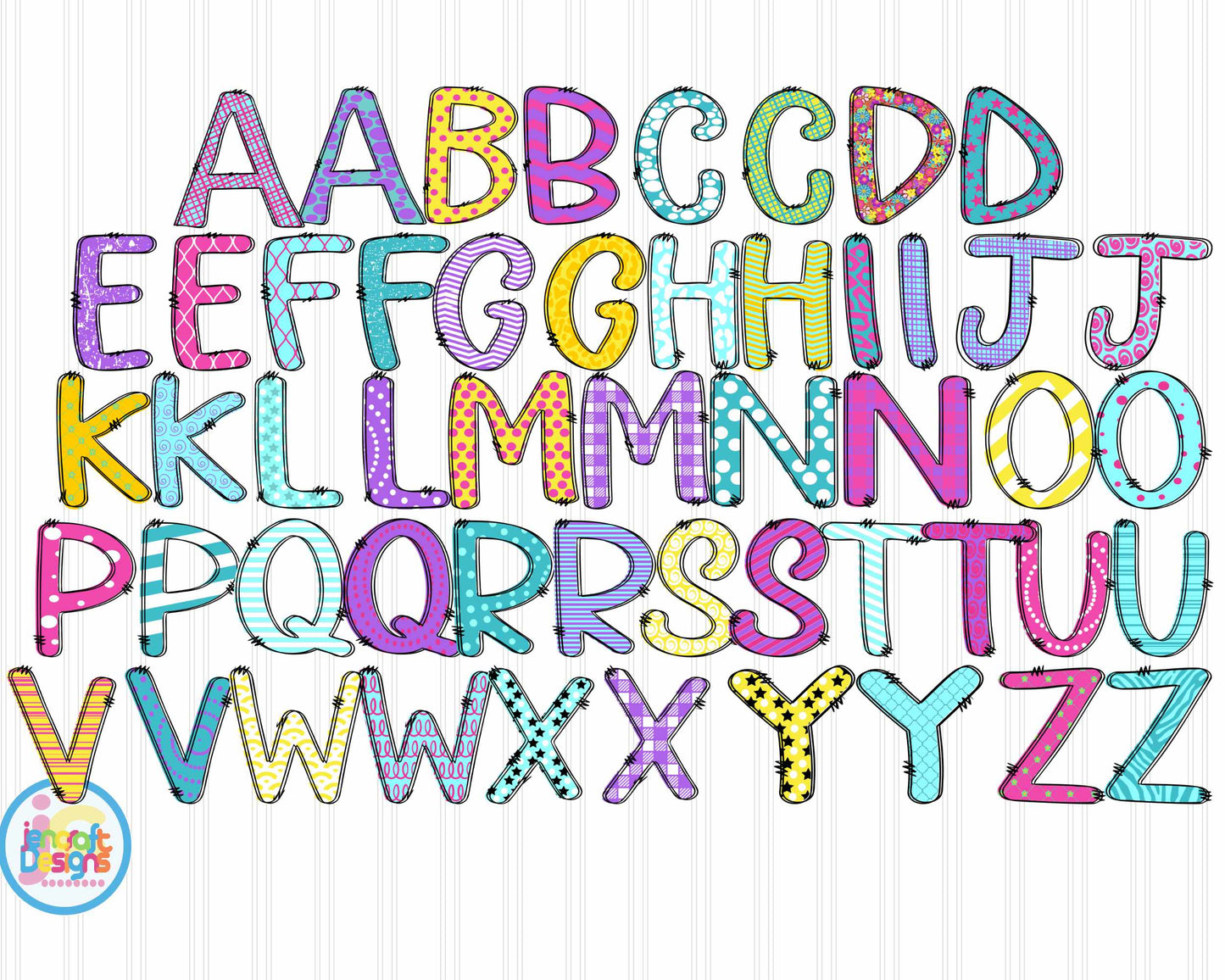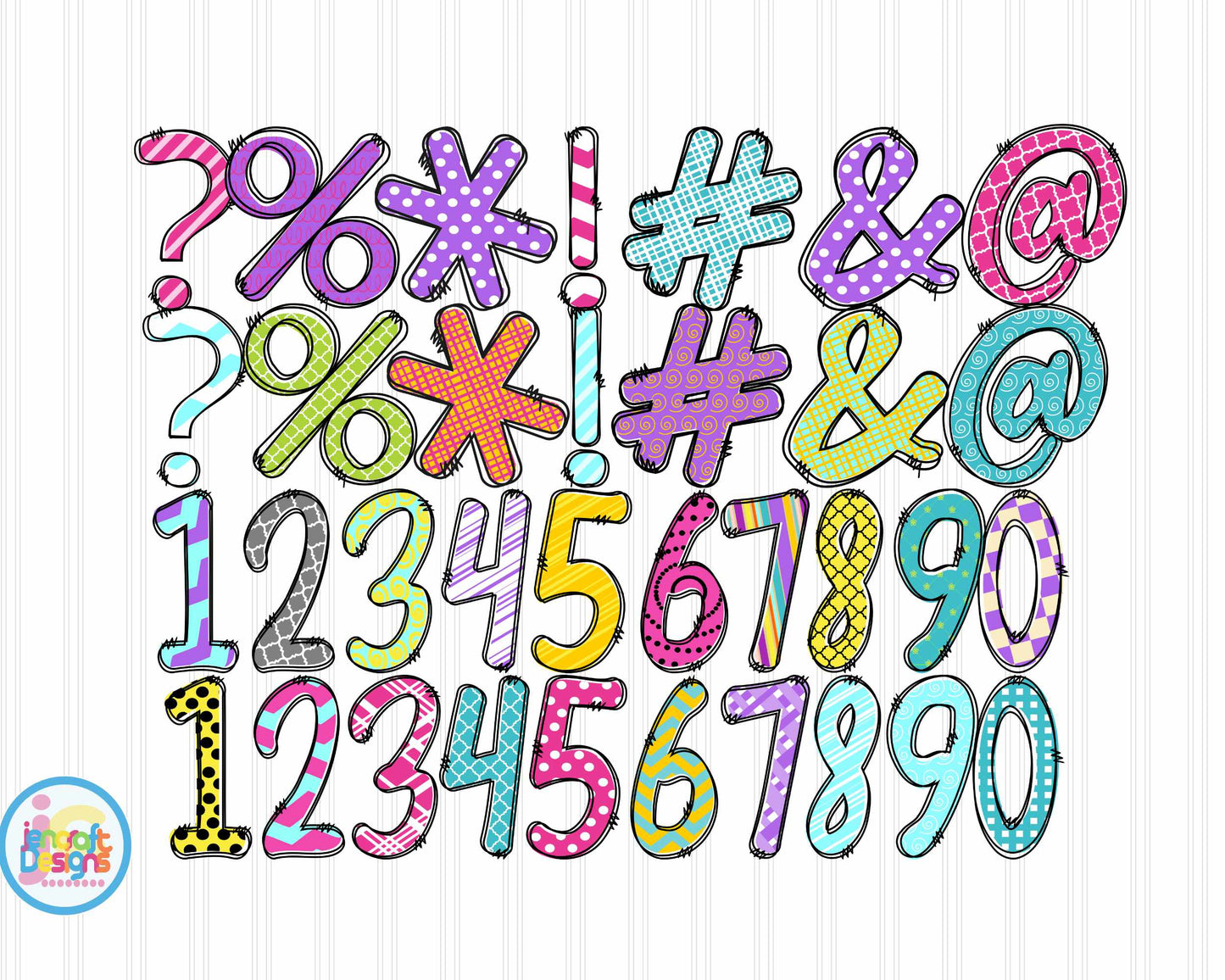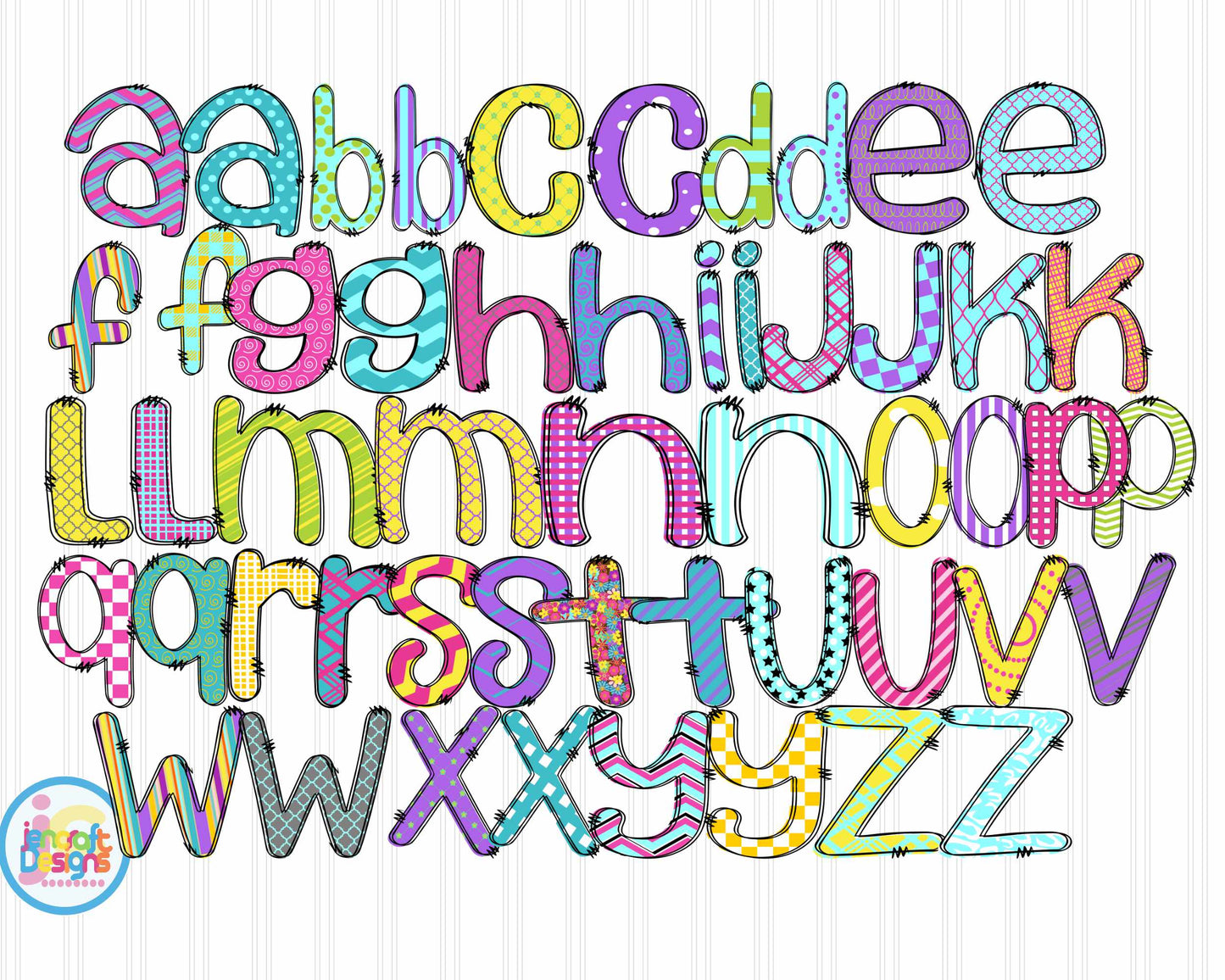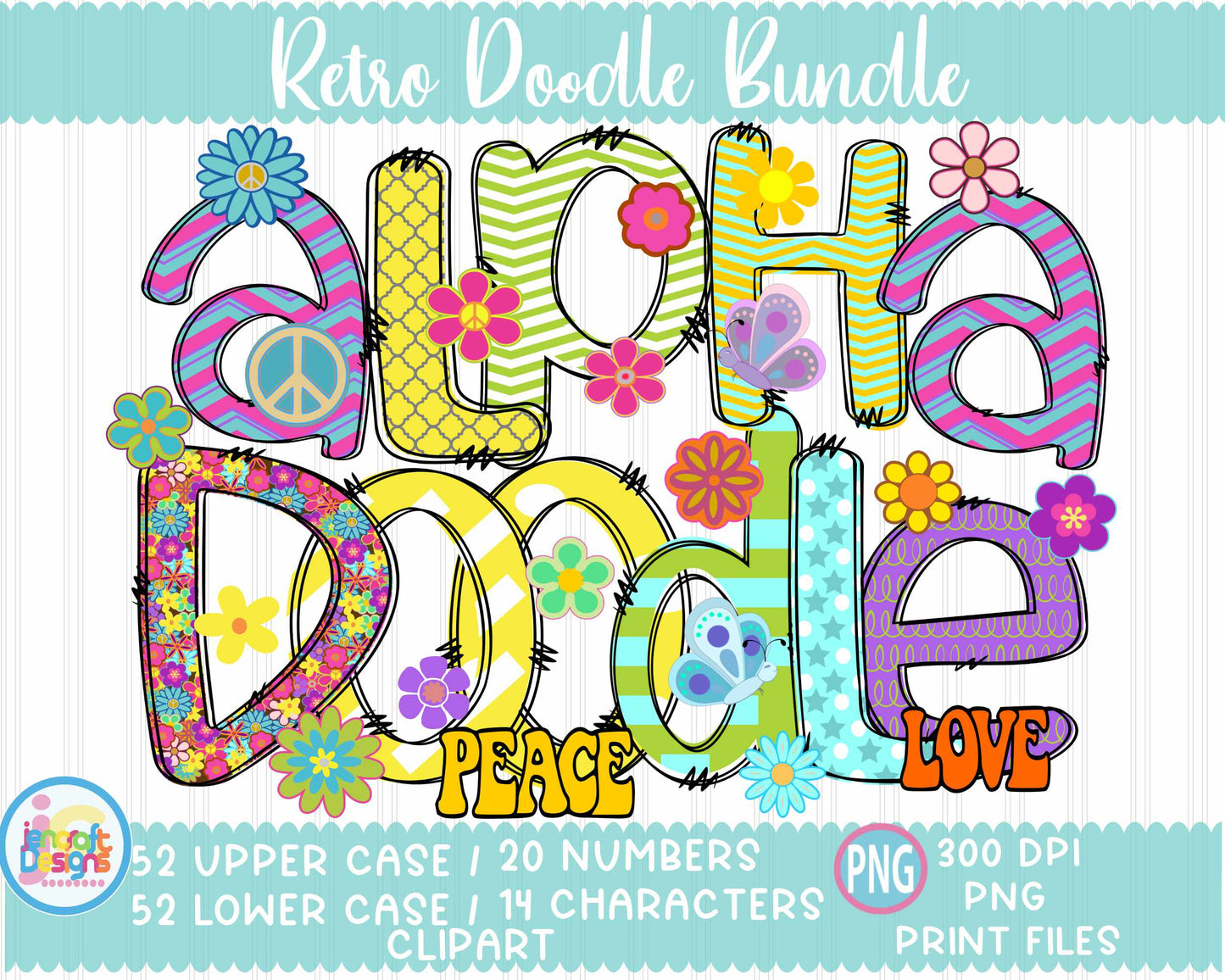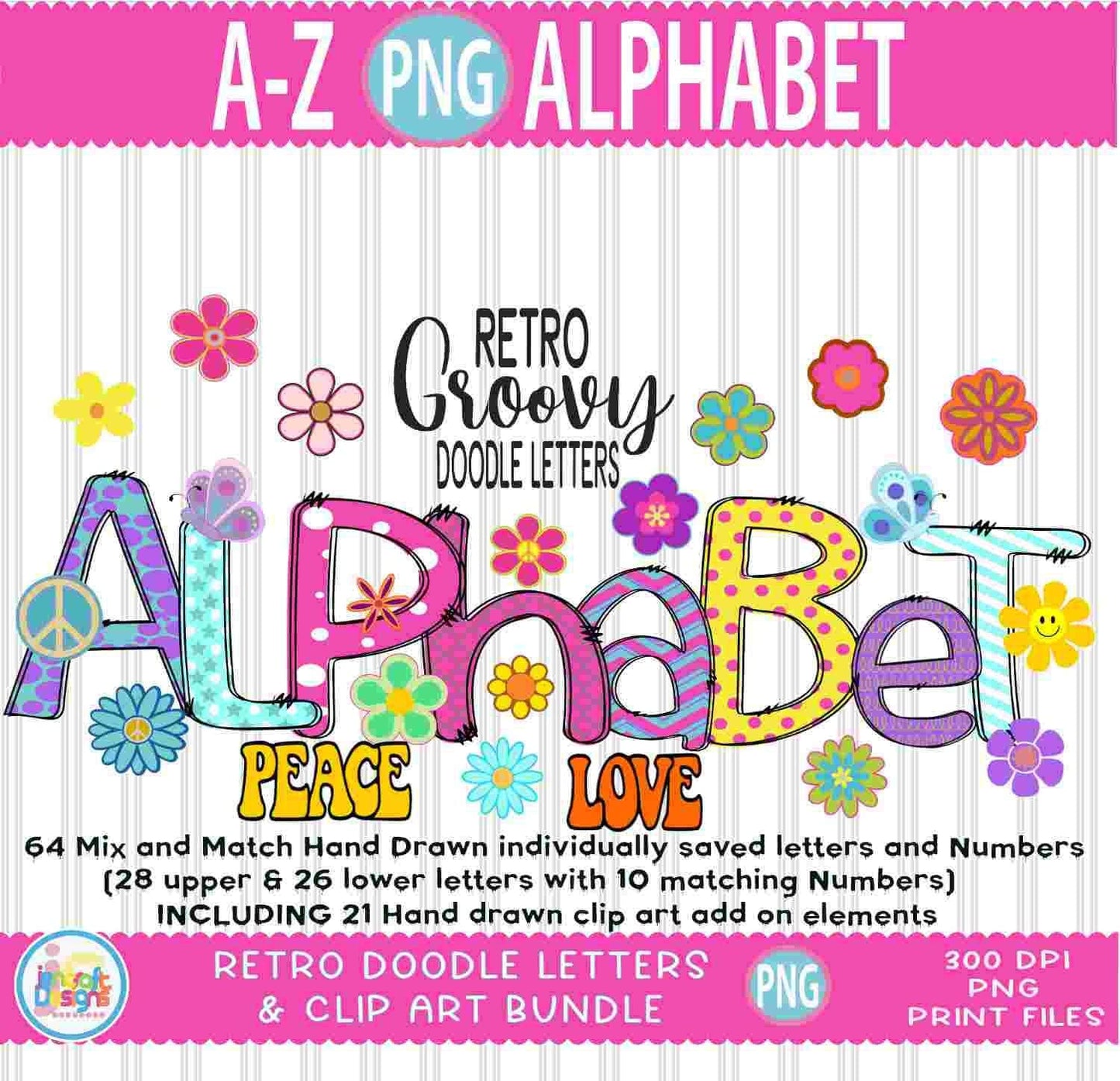
Retro Groovy Doodle Letters PNG | Alphabet Sublimation Bundle
Get groovy with this Retro Groovy Doodle Letters PNG Bundle — a hand-drawn, flower power-inspired alphabet set dripping with 70s retro charm, perfect for sublimation shirts, tumblers, tote bags, and all your vintage-vibes crafts. Each letter is saved individually for easy drag-and-drop use — no slicing needed!